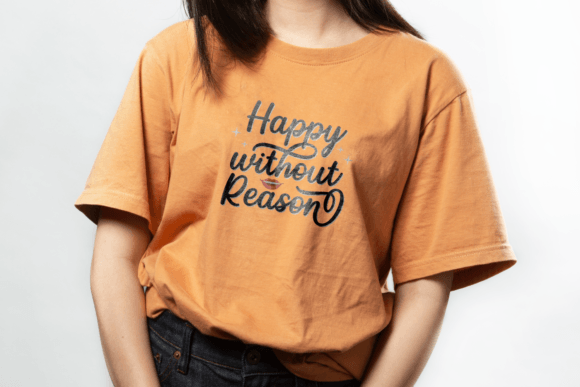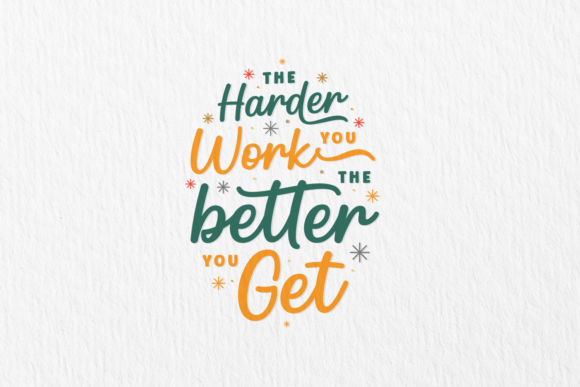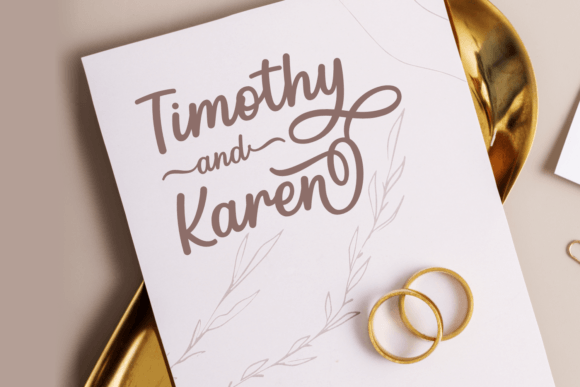
Beautiful Regina Font
Beautiful Regina is a sweet and cursive handwritten font. This gentle font will look gorgeous on a variety of design ideas. It will add a joyful and romantic touch to each of your projects! Perfectly fit for branding, logo, wedding things, greeting cards, fashion, lookbook, marketing promotion, and anytime you want to look fancy and elegant but still casual.This font is PUA encoded which means you can access all of the amazing glyphs and ligatures with ease!